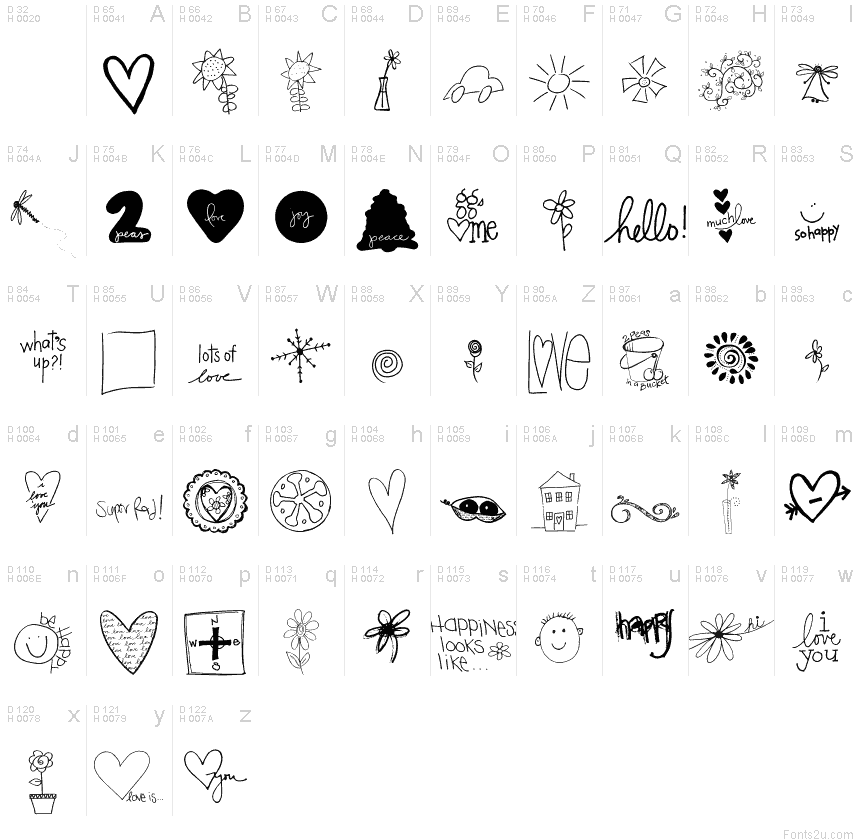
2Peas GGs Love Me is a free cartoon dingbat font with loose handwritten letters and simple doodled motifs. Uneven strokes, tall narrow forms, and sketchbook-style flowers give the design an easygoing homemade quality.
It can shape both cheerful greeting cards and informal cafe packaging, since the lettering feels personal and lightly illustrated. Scrapbook pages and children's activity materials are also a natural fit for its pen-drawn lines and playful irregularity. The casual drawing style is especially suited to young audiences, family events, and products built around handmade crafts.
2Peas GGs Love Me